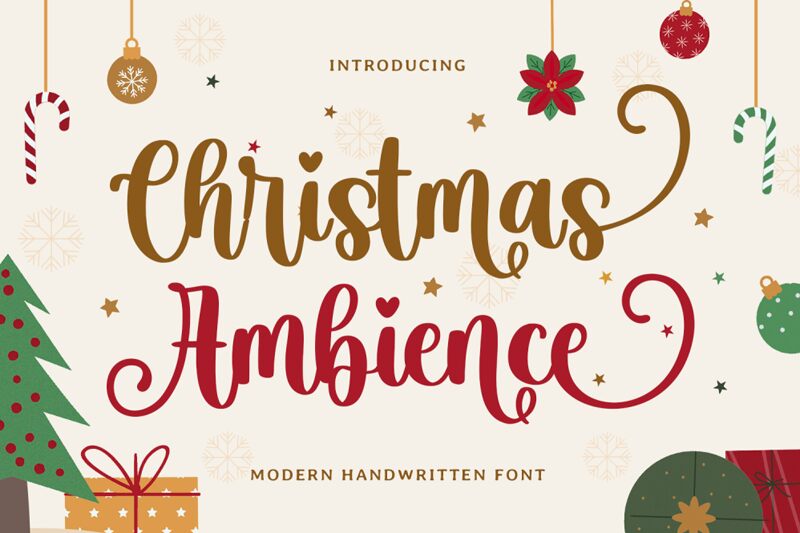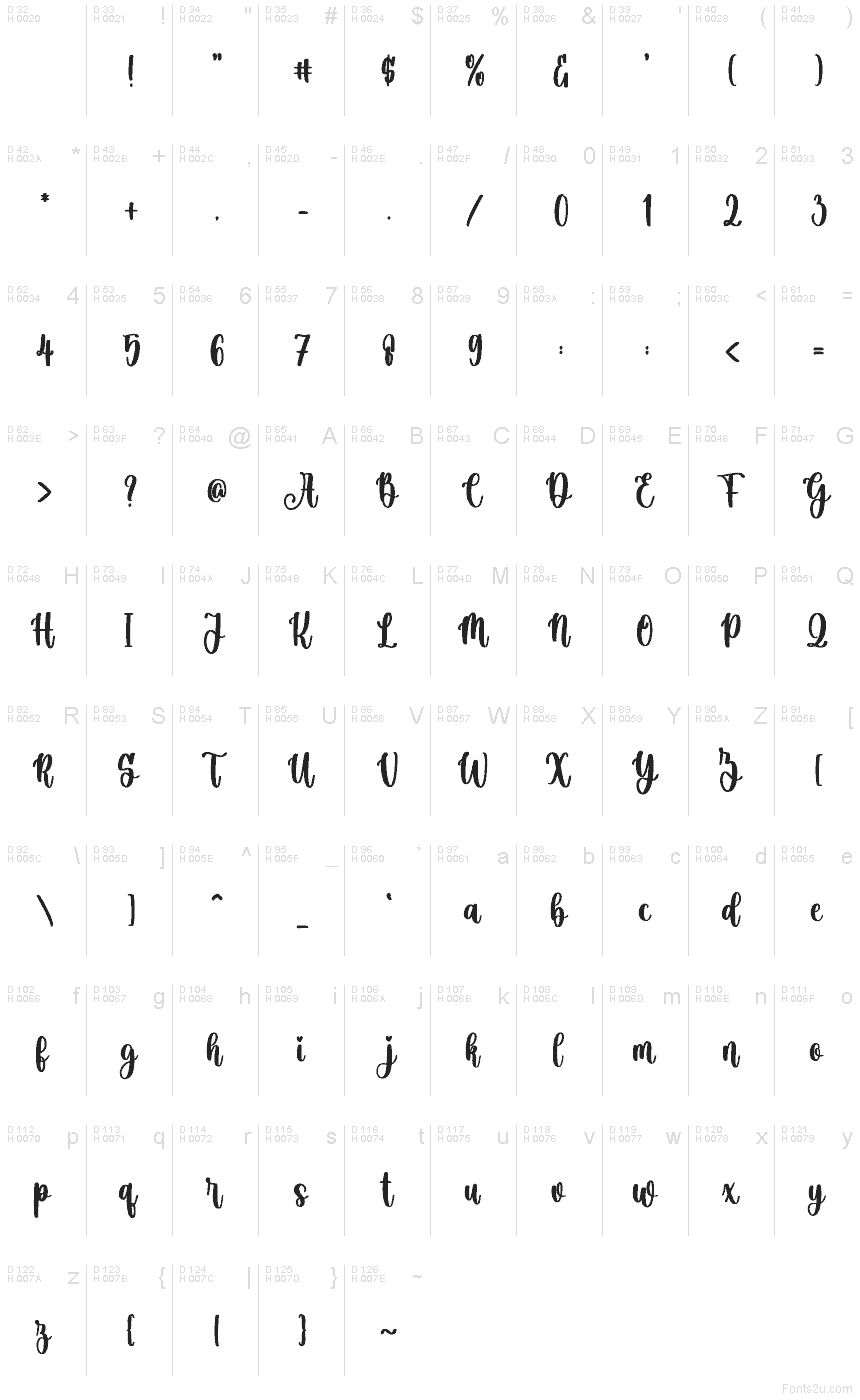
Christmas Ambience
Christmas Ambience font by Mozatype is a free holiday calligraphy typeface that captures the cozy rush of handwritten gift tags and warm cocoa nights. Its looping strokes, plump curves, and playful heart details feel like ink brushed across a Christmas card, giving every word a soft, festive glow. Letters connect with an easy rhythm, so phrases flow like a ribbon across your layout rather than stiff, separate pieces.
This free font shines on Christmas cards, party invitations, seasonal logos, social media graphics, gift labels, and printable wall art. Using Christmas Ambience instantly pulls a design into “holiday mode” without extra illustrations or clutter. Pair its swirling script with a simple sans serif in small caps for dates or taglines, and let the Christmas Ambience lettering take center stage at larger sizes for headlines and key phrases.